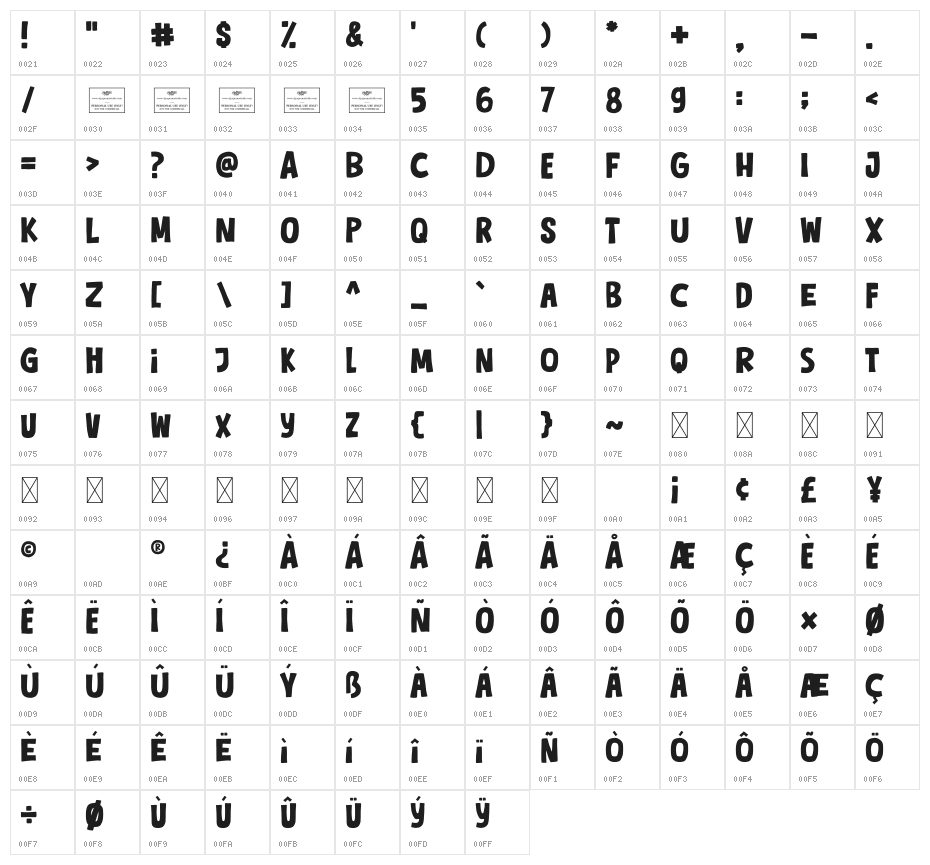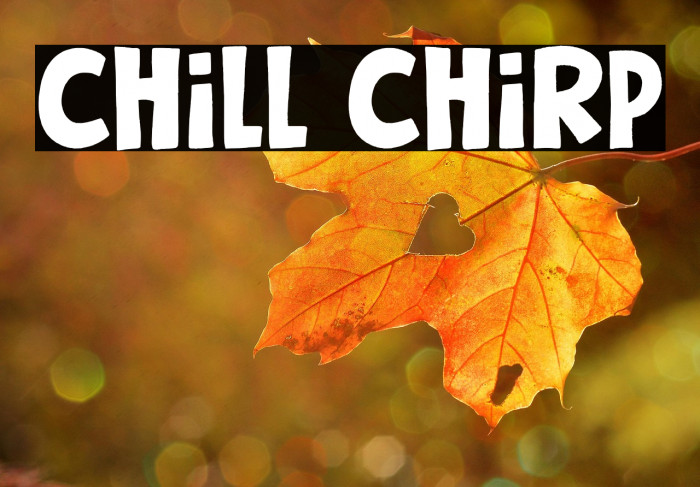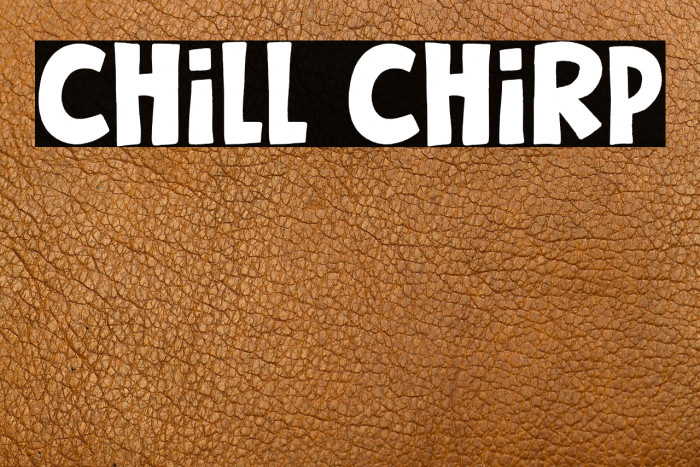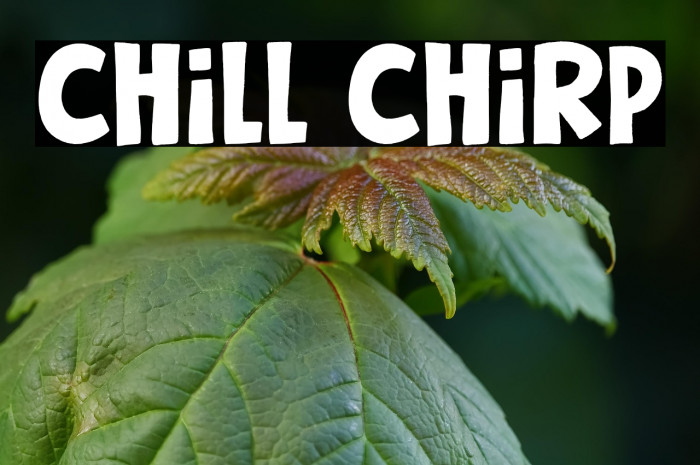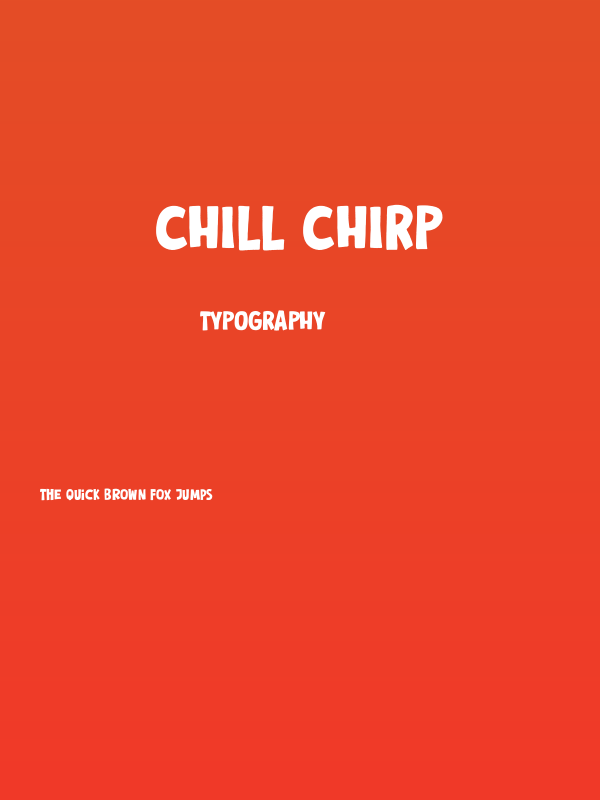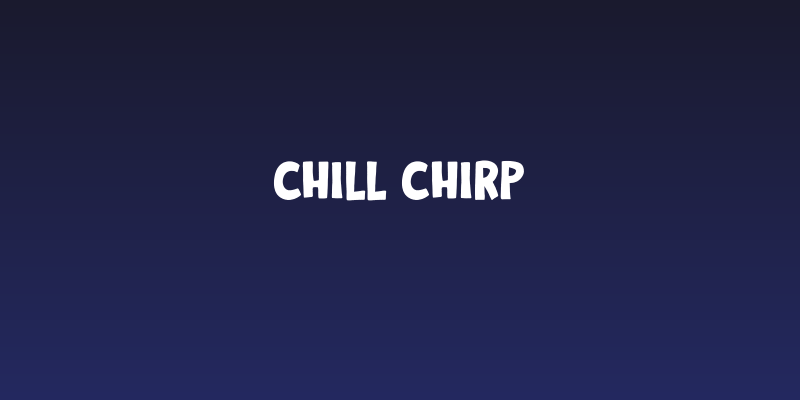
Chill Chirp Font
Chill Chirp Description
This font features a bold and playful style with a hand-drawn appearance. The letters are slightly irregular, giving it a casual and informal feel. The uppercase and lowercase characters maintain a consistent thickness, contributing to a cohesive look. The numbers and special characters are designed to match the quirky and fun aesthetic of the alphabet. This font is perfect for projects that require a touch of whimsy and creativity, making it ideal for children's books, playful branding, or artistic posters.
| Overall Style | Playful, Casual, Hand-drawn |
| Proposed Projects | Ideal for children's books, playful branding, artistic posters, and creative invitations. |